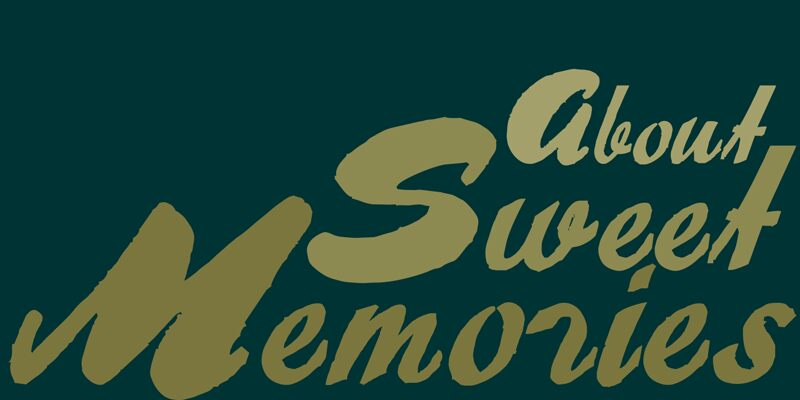
About Sweet Memories by Paulo W. is a free brush script with broad inky strokes, abrupt changes of width, and pointed finishes that recall the force and speed of confident hand-painted storefront signs. The uneven angles keep every line active.
Romance, nostalgia, and personal storytelling fit its loose movement, making it especially apt for wedding invitations, memory books, music covers, small-batch gift packaging, and artisan food labels with a personal voice. Across these projects, the sweeping capitals and long entry strokes can merge with floral drawings, ribbons, or painted flourishes within the finished artwork instead of behaving like neutral type.